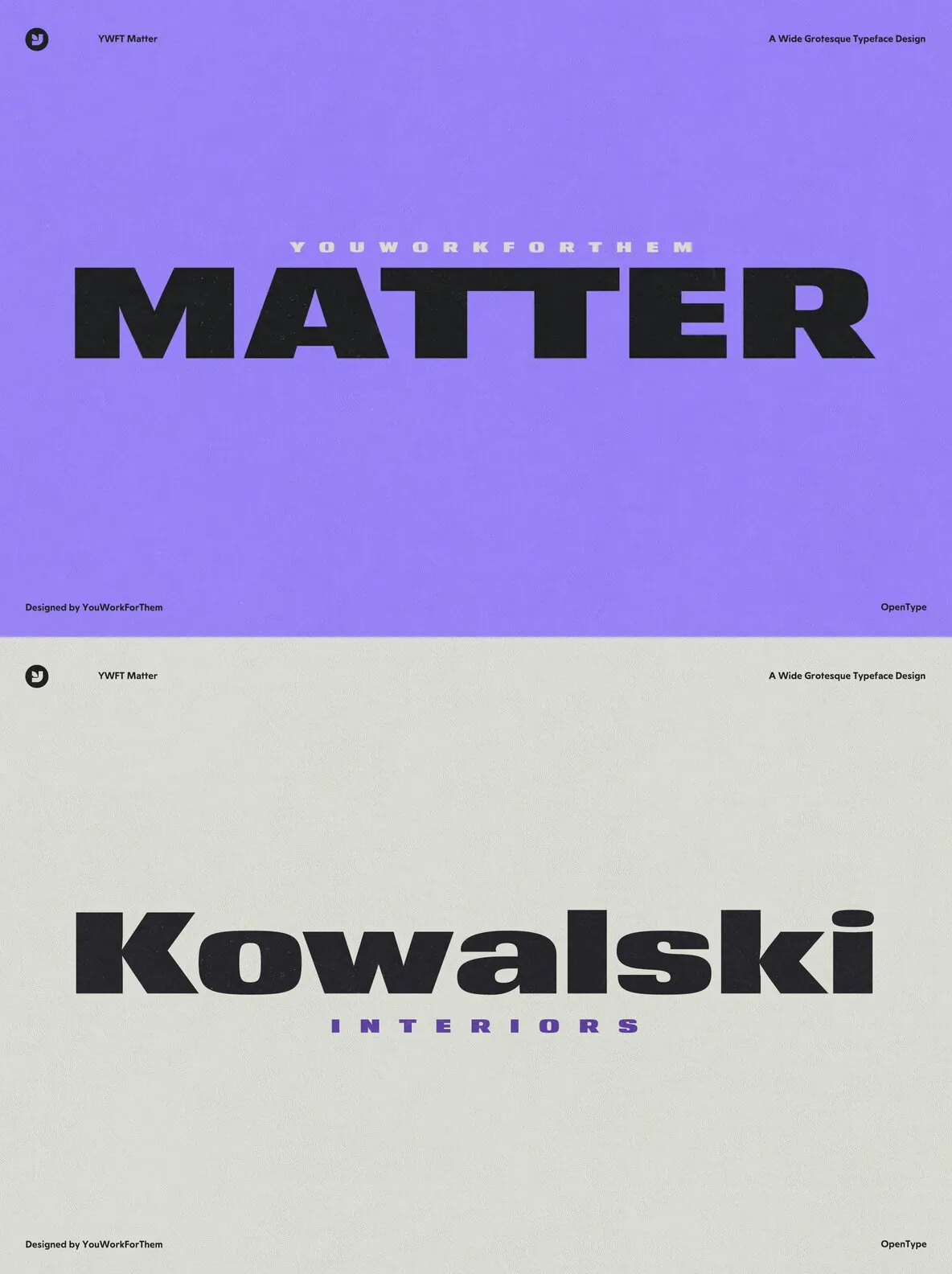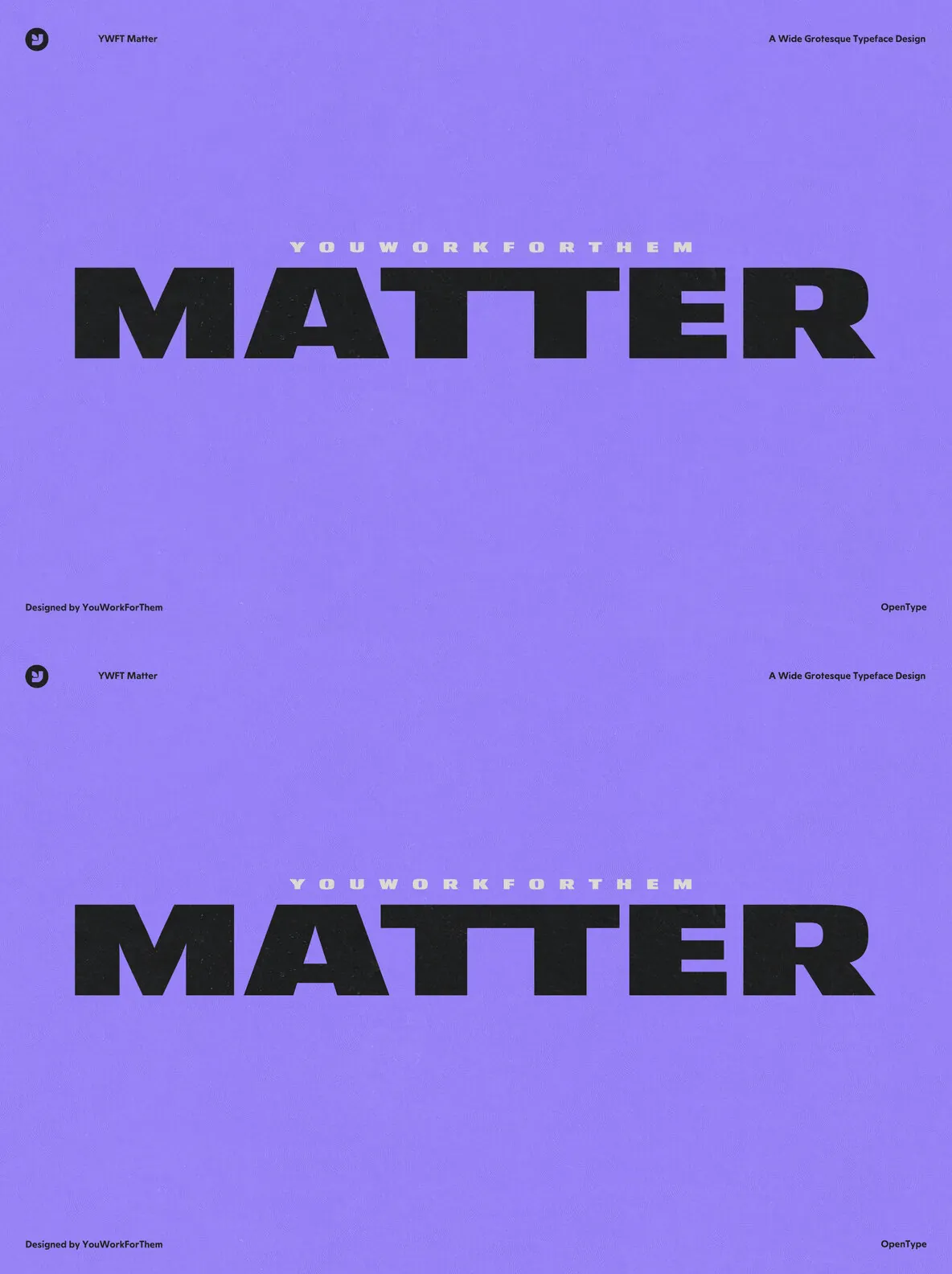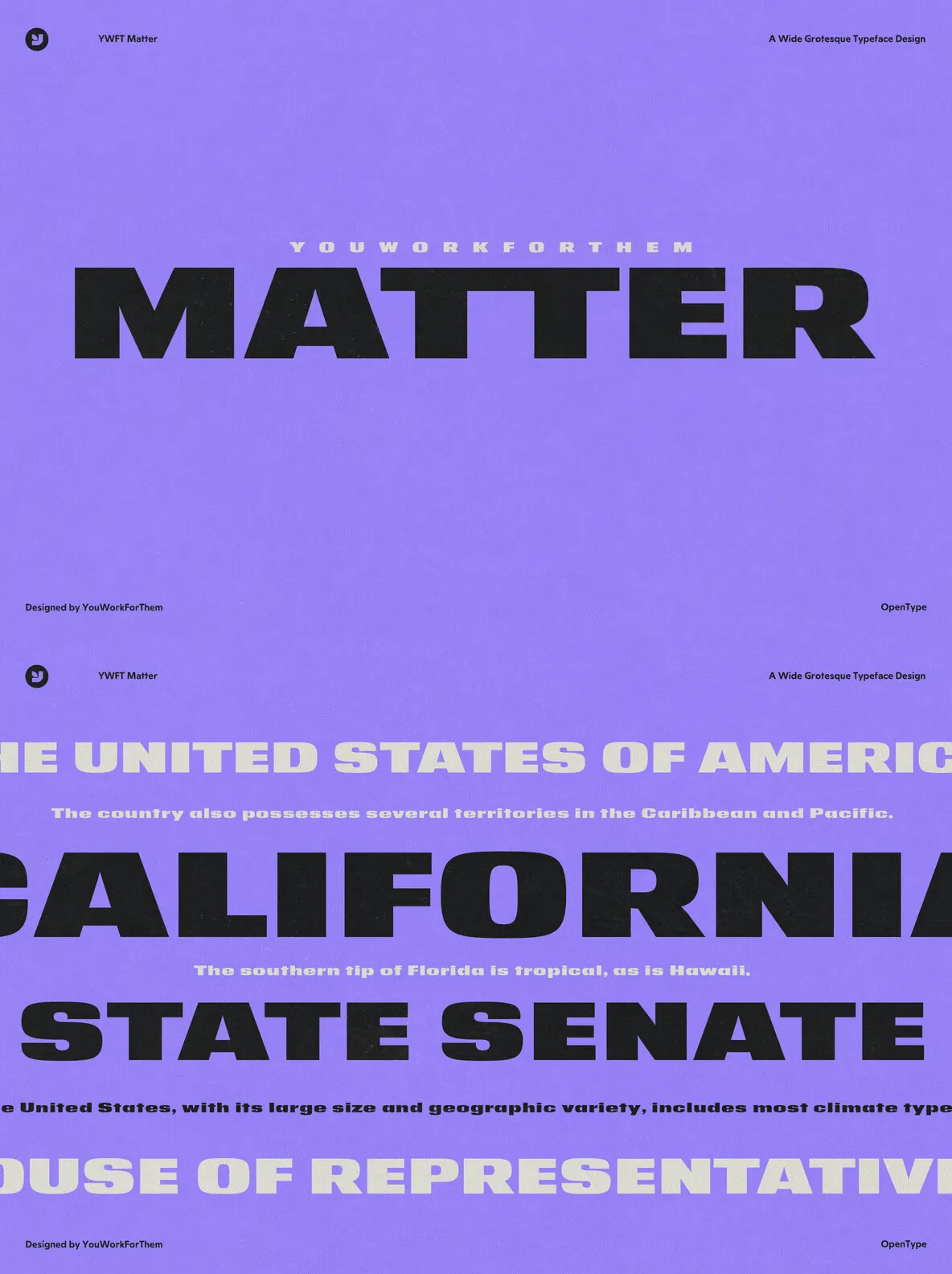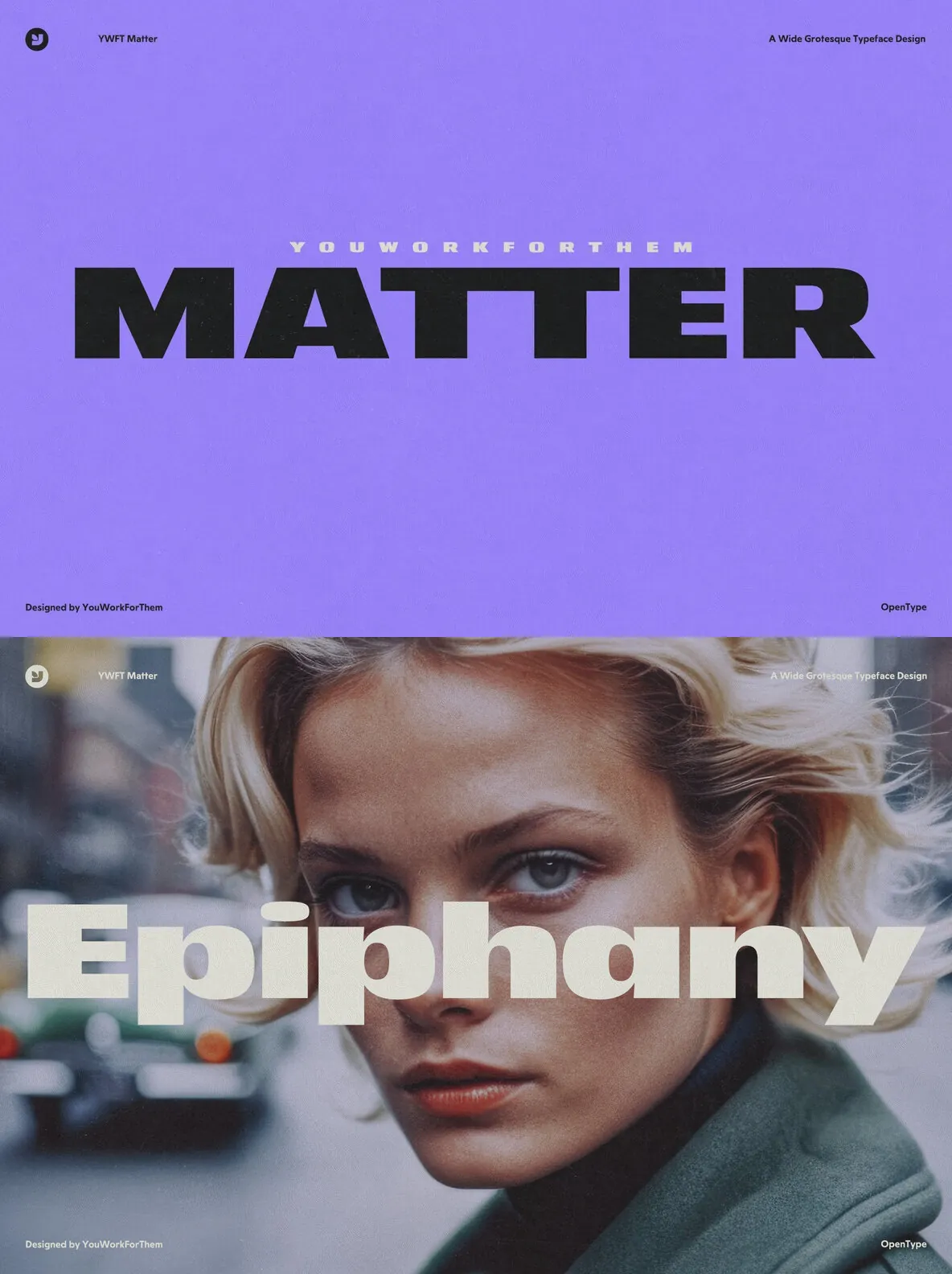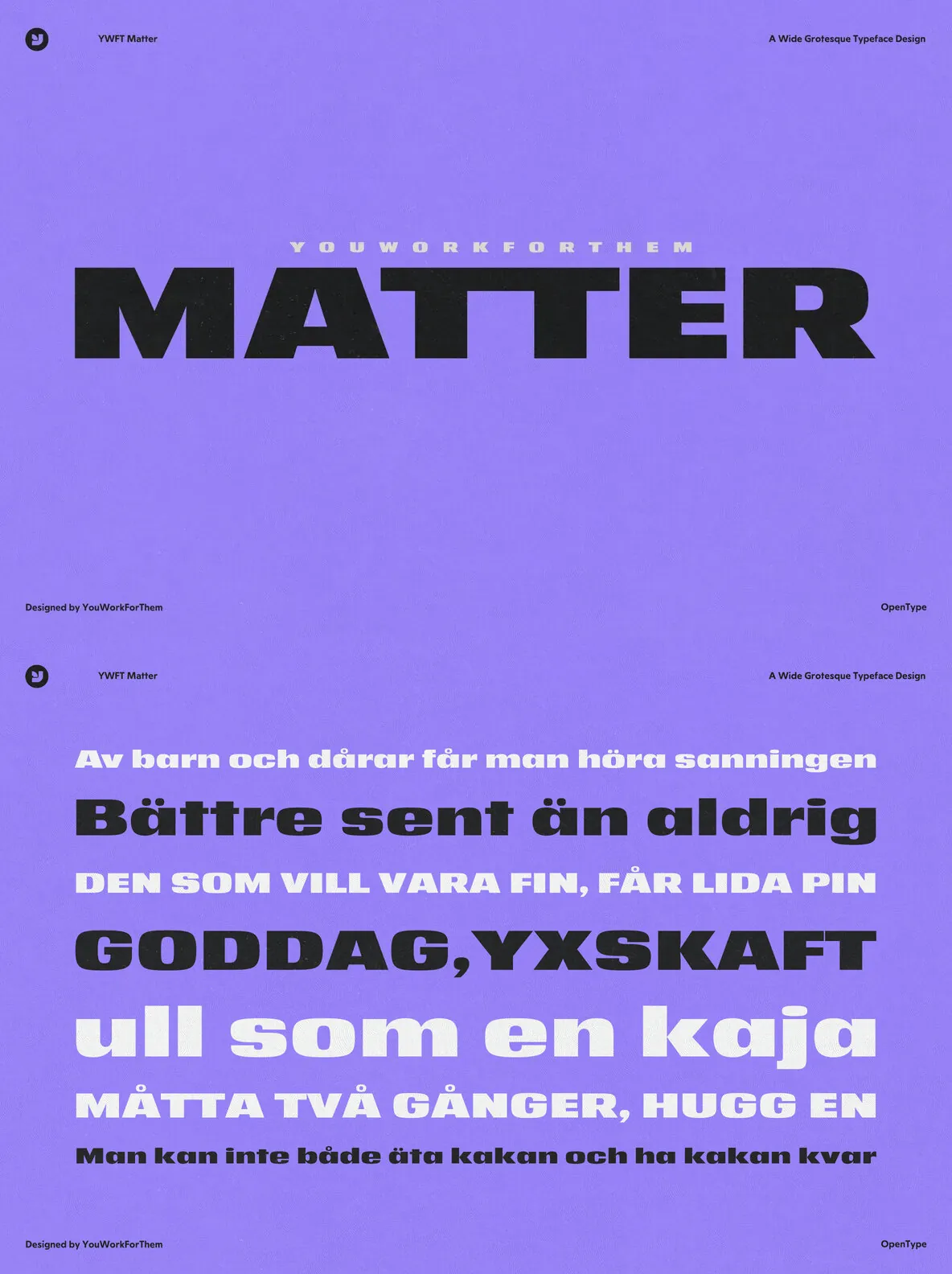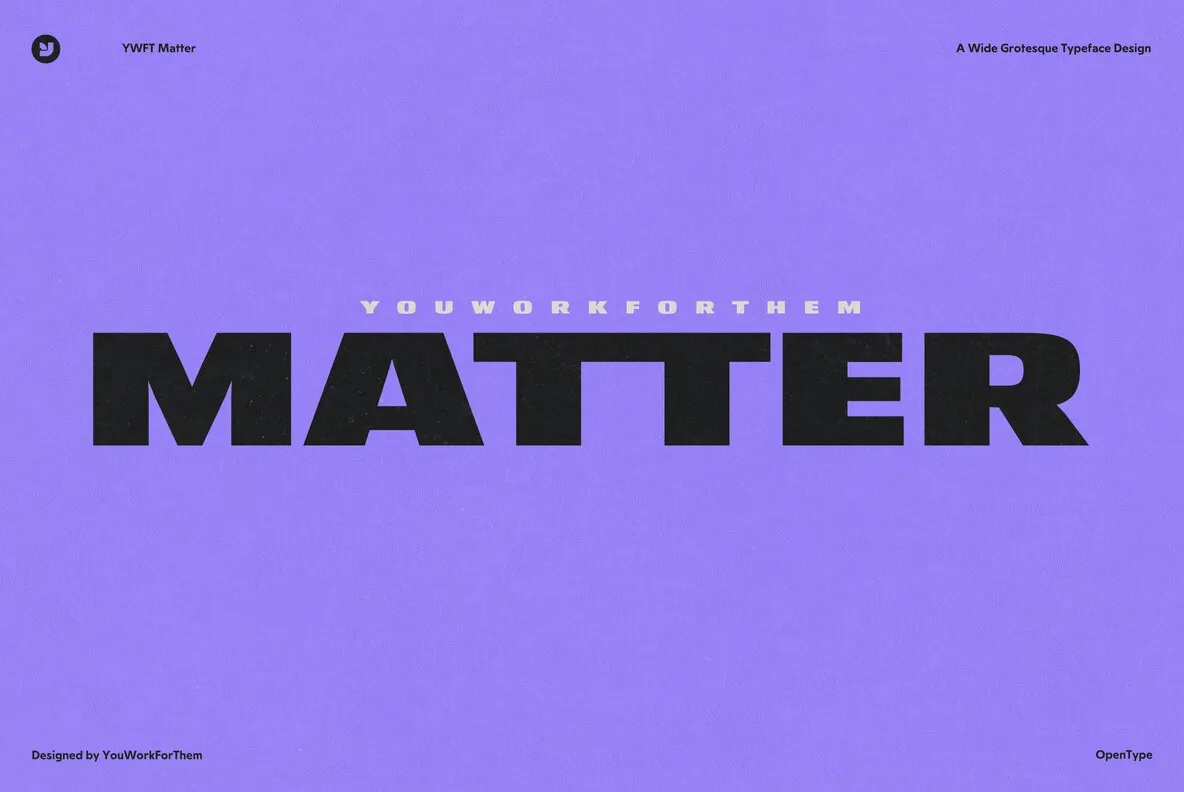
YWFT Matter: The Victorian-Inspired Sans-Serif
In the realm of typography, YWFT Matter emerges as a beacon of versatility, a sans-serif that weaves the intricacies of Victorian-era scientific texts into the fabric of its letterforms. It’s a typographic confluence where history whispers in the curves and serifs of each character. This font is an ode to the past, yet engineered for the present—a tool for graphic designers who dare to stand out.
Drawing from the robust archives of period marketing materials, YWFT Matter does not just mimic the bygone era; it reinterprets it. The typeface is a testament to the timelessness of good design, offering a nod to historical roots without the constraints of antiquity. Here, tradition and innovation are in constant, harmonious dialogue.
Empowering Designers with OpenType Flexibility
Amidst the nostalgic aura of YWFT Matter lies its modern twist: the OpenType alternate glyphs. This feature is a game-changer, granting designers the freedom to dance between eras—mixing, matching, and melding contemporary and classical vibes within their creative works. The alternates are a nod to the designer’s craft, an invitation to explore a realm of typographic expression that is limitless in its potential.
Whether it’s the headline of an avant-garde magazine or the cornerstone of a brand’s visual identity, YWFT Matter is designed to adapt. Its versatility is not just in its appearance, but in its utility. The typeface offers an unmatched level of customization, allowing one’s artistic vision to flourish unbounded.
Crafting Visual Narratives with YWFT Matter
Choosing YWFT Matter means opting for a font with a narrative depth that adds layers to any project. It’s for the editorial that doesn’t just want to be read, but to be felt; for the brand that seeks not just recognition, but resonance. This typeface doesn’t just deliver words; it delivers experiences. It is an invitation to audiences to delve into a story that is dynamically unfurled through each letter and glyph.
For the discerning graphic designer, YWFT Matter is more than a font—it’s a pivotal design companion. It embodies an aesthetic versatility that truly matters, standing as a testament to the power of a well-crafted typeface to elevate the ordinary to the extraordinary.